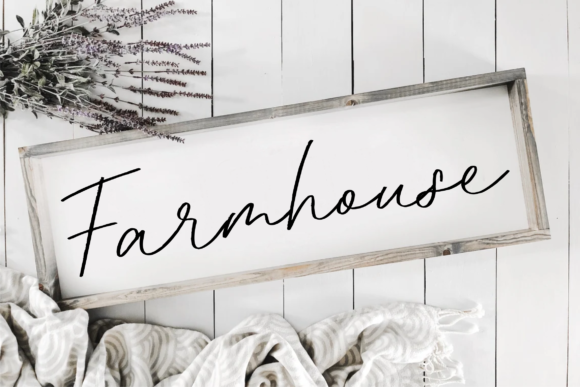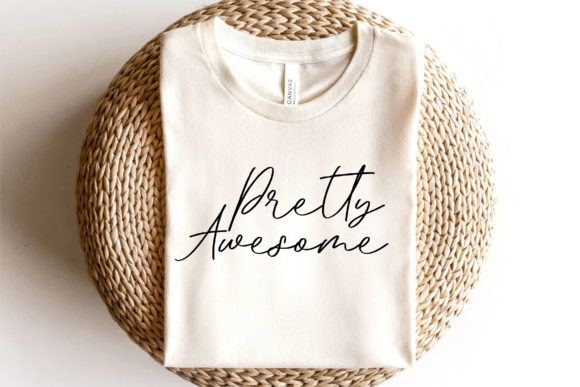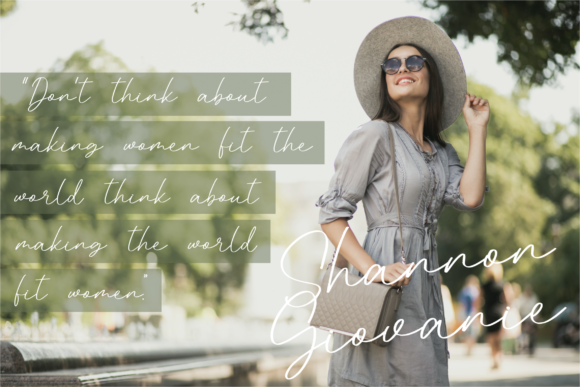
Introduction to Mochiffissa Font
Have you ever been working on a creative project, and you just can’t seem to find the perfect font to bring your design to life? I know I have. As designers, we’re always on the lookout for that special something that will elevate our work and make it truly stand out. And that’s exactly what I discovered when I stumbled upon the Mochiffissa Font.
This slim and delicate script font is a game-changer for designers, and I’m excited to share it with you. Whether you’re working on a product packaging design, creating a brand identity, or simply need a stylish font for social media, the Mochiffissa Font is an absolute must-have. Its versatility and high-quality design make it an invaluable resource for any creative project.
Key Features of Mochiffissa Font
- Unique, playful font with a transparent background, ideal for adding visual interest to designs
- Supports a wide range of languages, making it a versatile design resource for global creative projects
- Designed with a high resolution of 300 DPI, ensuring crisp and clear text even at larger font sizes
- Perfect for use in digital designs, such as logos, social media graphics, and website content
Honest Review: Mochiffissa Font
I recently stumbled upon the Mochiffissa Font, and I’m excited to share my thoughts on this design resource. As a designer, I’m always on the lookout for high-quality fonts that can elevate my creative projects.
The Mochiffissa Font is a unique and quirky addition to any design. I appreciate the transparent background, which makes it easy to work with and allows for seamless integration into any design project.
- Unique and quirky design style
- May not be suitable for all design projects due to its playful and whimsical nature
- Some users may find the font too bold or overpowering
Overall, I’m impressed with the Mochiffissa Font. It’s a great addition to any design library, and I appreciate its high quality and unique design style. Whether you’re working on a creative project or just looking for a fun and quirky font, the Mochiffissa Font is definitely worth checking out.
Getting the Most Out of the Mochiffissa Font
To get the most out of the Mochiffissa Font, experiment with different text settings, such as font size, color, and alignment. You can also combine this font with other design elements to create a unique look.
Common Use Cases for the Mochiffissa Font
The Mochiffissa Font is perfect for various creative projects, including logos, brochures, business cards, and social media graphics. Its high-quality design and transparent background make it a valuable design resource.